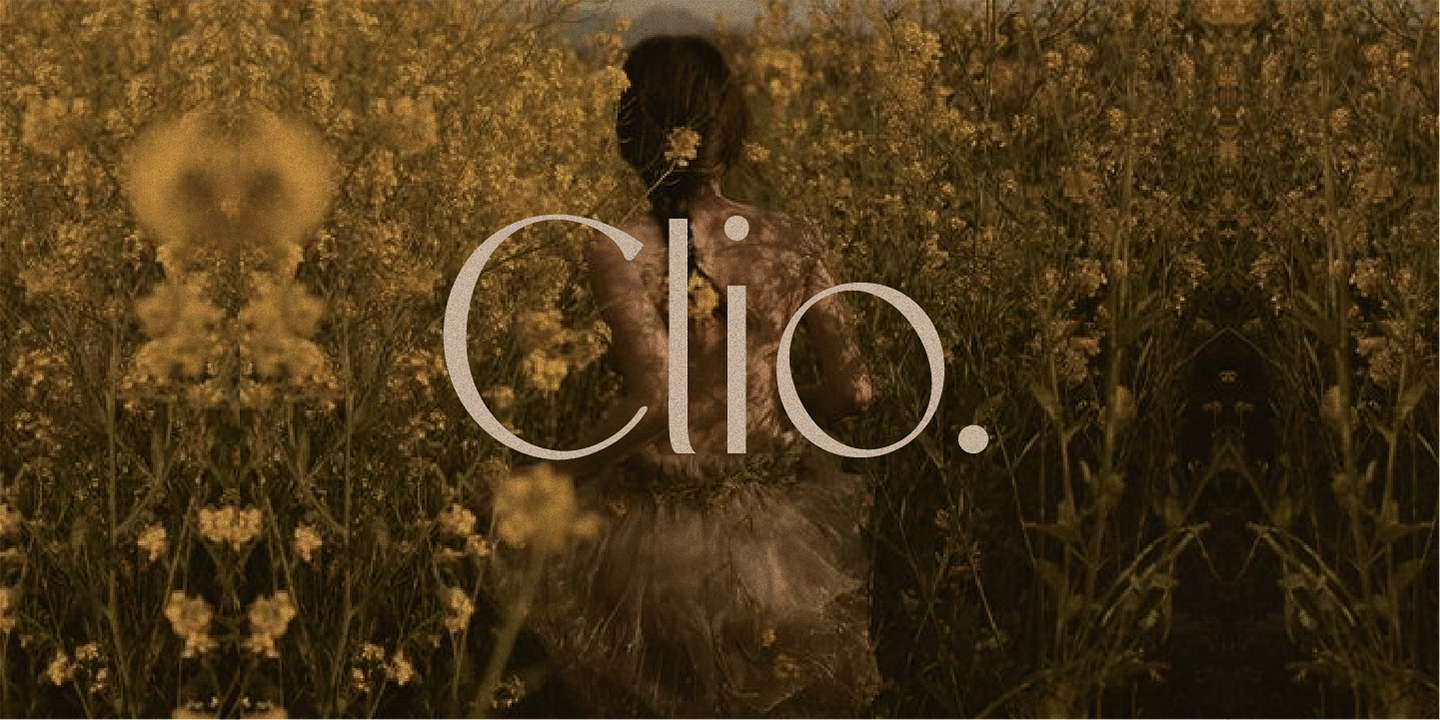
Elevate your designs with HV Clio Font Free Download – a sophisticated serif typeface that masterfully blends classic elegance with contemporary versatility. Inspired by timeless editorial typography, this font family delivers exceptional readability with distinctive character, making it perfect for luxury branding, high-end publications, and refined digital experiences.
Why Designers Love HV Clio Font:
4 Optical Sizes optimized for display, headline, text, and caption applications
8 Weight Variations from delicate Thin to commanding Black
True Italics with graceful calligraphic influences
500+ Glyphs including small caps, alternates, and ligatures
Premium cosmetic packaging with elegant typographic hierarchy
Literary book designs that demand comfortable reading experiences
Sophisticated web typography with flawless screen rendering
Corporate identity systems requiring timeless professionalism
Extensive Latin language support
OpenType features for professional typesetting
Perfectly balanced letter proportions
Design Tip: Pair HV Clio's lighter weights with a contemporary sans-serif for stunning contrast in luxury branding projects. The italics work beautifully for elegant pull quotes and highlighted text.